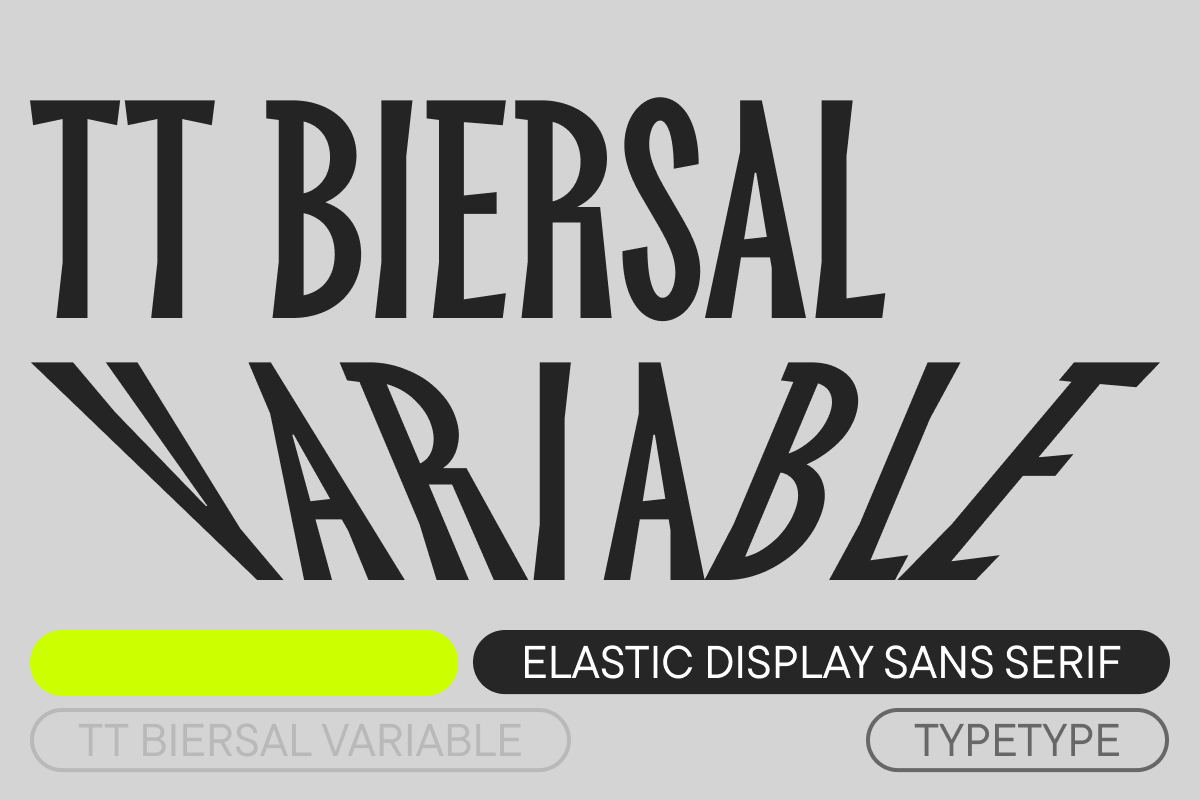
TT Biersal Variable
TT Biersal is a sans serif with a free-spirited, playful, and adventurous nature. The concept of the font was sparked by a German poster from the early 1930s. We aimed to maintain the proportions of the reference along with an unpolished, lively feel of its lettering. As a result, we got a vibrant, dense font with narrow proportions and asymmetrical forms. Italic font styles make TT Biersal look even more dynamic and swift as we added an extreme slant, from -40° to +40°, to retalics and italics.